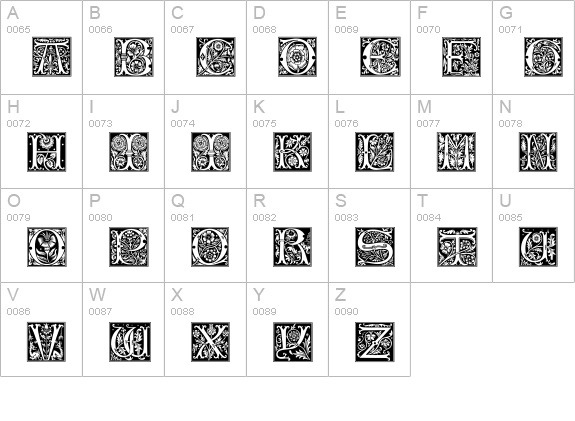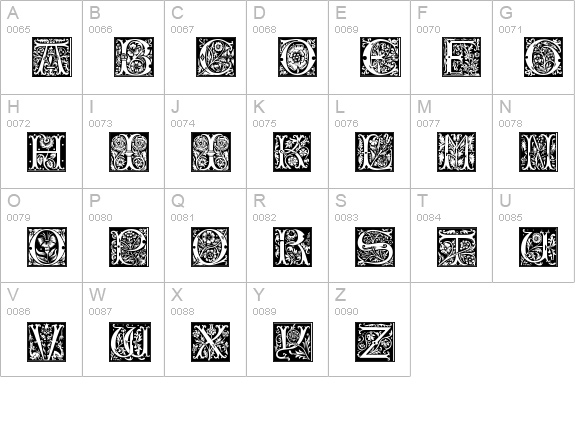
Introducing Rose Caps font, a whimsical and elegant typeface that is perfect for adding a touch of sophistication to your designs. This charming font features delicate rose motifs incorporated into each letter, creating a truly unique and eye-catching look. The Rose Caps font is versatile and can be used for a variety of design projects, from wedding invitations to branding materials. Best of all, Rose Caps font is available for free download at FontsMarket.com. Whether you're a professional designer or a hobbyist looking to add a special touch to your projects, this font is sure to inspire creativity and elevate your designs. Don't miss out on the opportunity to enhance your work with the beauty of Rose Caps font - download it today and let your creativity bloom!